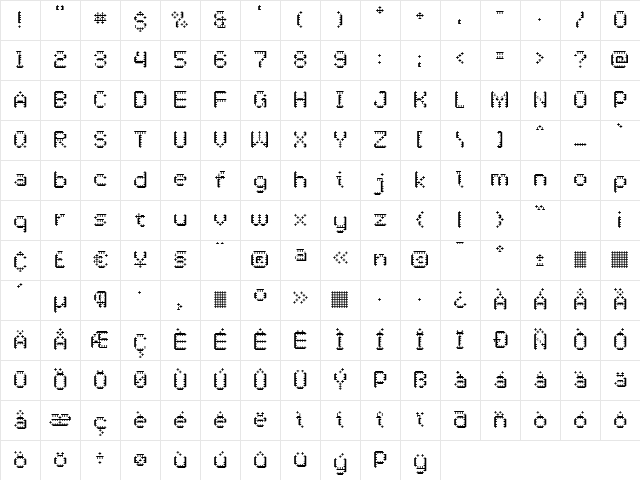
Complete OneCross Regular glyph index. Displaying only characters natively supported by OneCross Regular font.
OneCross is a composed and adaptable typeface that performs quietly and consistently across a wide range of design contexts.
Pro Tip: Use OneCross in both headline and body roles to test its range before committing to a single application.